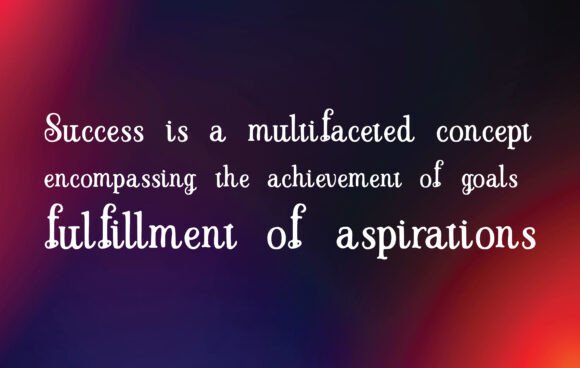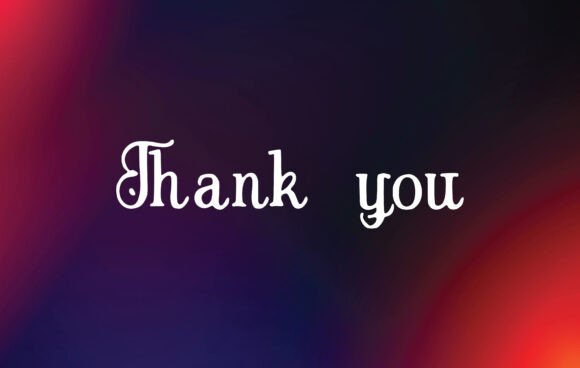
Cannon Font: Elevate Your Creative Projects with this Stunning Handwritten Font
Are you a designer, crafty enthusiast, or simply someone who appreciates beautiful typography? Look no further than the Cannon Font, a lovely and beautiful handwritten font that has the potential to take your creative ideas to the highest level. With its unique charm and character, Cannon is the perfect choice for creating eye-catching logos, branding, and quotes that will leave a lasting impression.
What Makes Cannon Font So Special?
Cannon Font is a meticulously crafted handwritten font that boasts a distinctive and elegant style. Its flowing lines, subtle curves, and carefully considered letterforms make it a true standout in the world of typography. Whether you’re looking to create a bold and dramatic statement or a soft and whimsical one, Cannon Font is the ideal choice.
Key Features of Cannon Font
• Unique and Handwritten Style: Cannon Font is a one-of-a-kind handwritten font that adds a touch of personality and warmth to any design project.
• Highly Versatile: With its clean and elegant design, Cannon Font is suitable for a wide range of applications, from logos and branding to quotes and social media graphics.
• Easy to Read: Despite its ornate and decorative nature, Cannon Font is surprisingly easy to read, making it perfect for use in both digital and print materials.
• Scalable: Cannon Font is designed to look great at any size, from small captions to large headlines.
Why Choose Cannon Font for Your Design Projects?
There are many reasons why Cannon Font is an excellent choice for designers, crafters, and creatives of all kinds. Here are just a few:
• Add a Personal Touch: With Cannon Font, you can add a personal touch to your design projects, setting them apart from the generic and mundane.
• Enhance Your Brand: Cannon Font can help you create a unique and memorable brand identity that reflects your values and personality.
• Save Time: With Cannon Font, you can create stunning designs in no time, thanks to its ease of use and versatility.
• Stand Out from the Crowd: Cannon Font is a true showstopper, guaranteed to grab attention and leave a lasting impression on your audience.
How to Use Cannon Font in Your Design Projects
Using Cannon Font in your design projects is easy and straightforward. Here are a few tips to get you started:
• Pair it with Other Fonts: Cannon Font pairs beautifully with other fonts, so feel free to experiment with different combinations to create a unique look.
• Experiment with Colors: Cannon Font looks great in a variety of colors, from bold and bright to soft and pastel.
• Play with Size and Layout: Don’t be afraid to experiment with different sizes and layouts to create a visually appealing design.